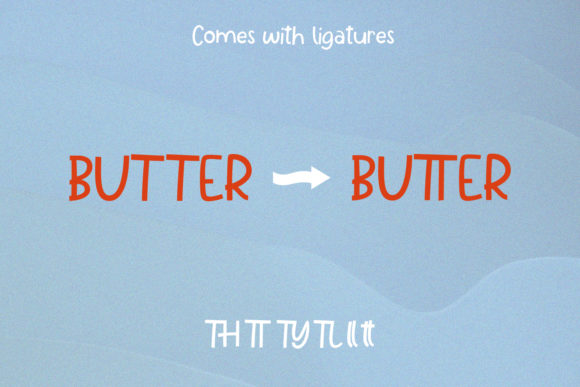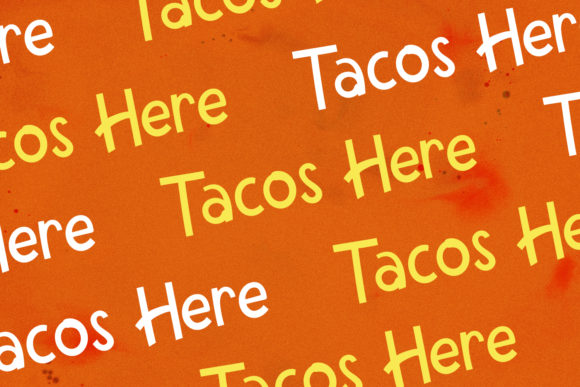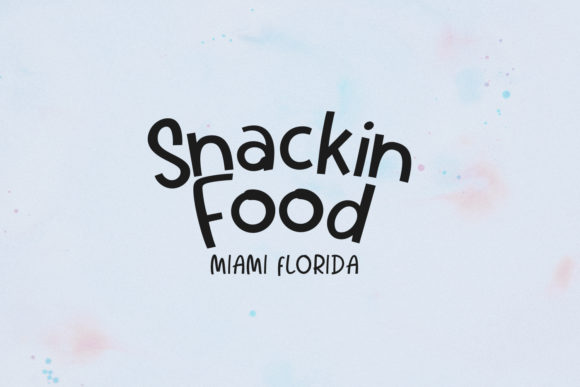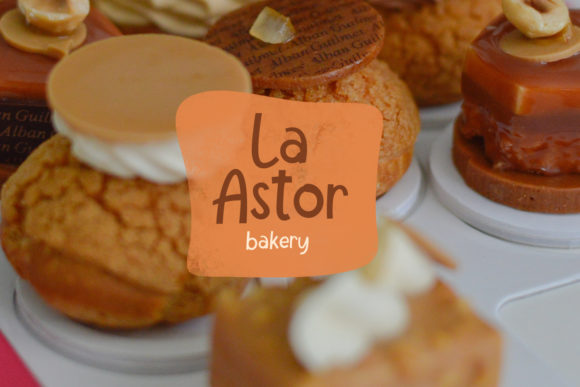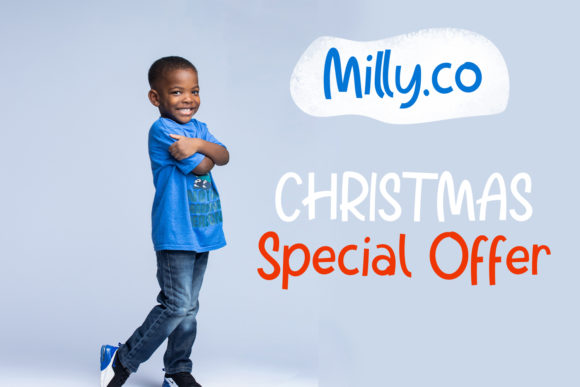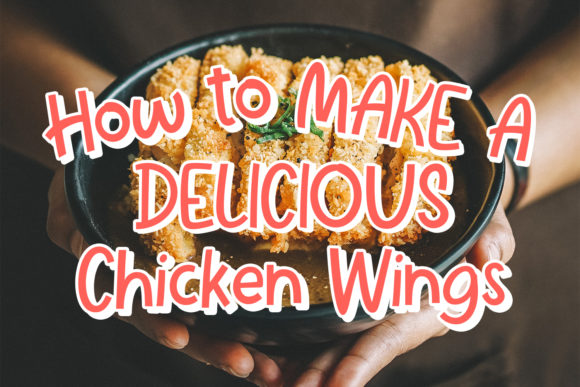
Introduction to Pinatta Font
Do you remember the thrill of brainstorming for a creative project, and finally, the perfect idea strikes? The excitement of bringing it to life, experimenting with colors, shapes, and typography is what makes design so magical. One crucial element that can elevate your project from good to great is the right font. For designers seeking to add a touch of whimsy and elegance, Pinatta Font is an ideal choice.
With its cute and fancy display style, Pinatta Font is sure to make your designs stand out. Whether you’re working on a digital project or a print design, this high-quality font will add a unique touch to your work. And the best part? Pinatta Font is available for free download, making it a valuable design resource for designers of all levels.
- Unique, hand-drawn style that adds a touch of personality to any creative project, making it a valuable design resource.
Honest Review: Pinatta Font
I recently had the chance to work with the Pinatta Font and I’m excited to share my honest review. As a designer, I’m always on the lookout for high-quality design resources that can elevate my creative projects. The Pinatta Font did not disappoint.
What works well: ✨ The Pinatta Font is incredibly versatile, with a modern and playful aesthetic that can be used for a wide range of creative projects. I particularly love the fact that it’s available for free download, making it an excellent addition to any design library. The font also has a transparent background, which makes it easy to use on any background image or color.
- High-quality design with clean lines and a modern aesthetic
- Transparent background for easy use on any background
Limitations: ⚠️ While the Pinatta Font is an excellent addition to any design library, it’s worth noting that it may not be suitable for all types of projects. The font’s playful aesthetic may not be the best fit for more formal or traditional designs.
Overall impression: I’m thoroughly impressed with the Pinatta Font and would highly recommend it to designers of all levels. Its high quality, versatility, and free download make it an excellent resource for any creative project. Whether you’re working on a personal or professional project, the Pinatta Font is definitely worth checking out.
To get the most out of Pinatta Font, use it in conjunction with other design elements to create a cohesive look. Experiment with different font sizes, styles, and colors to achieve a unique and eye-catching design.
Pinatta Font is commonly used in design projects such as brochures, flyers, and business cards. Its high quality and unique style make it an ideal choice for any creative project.